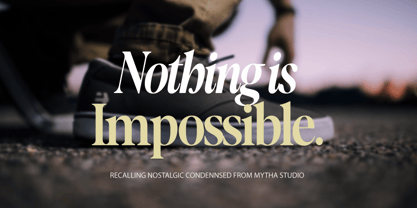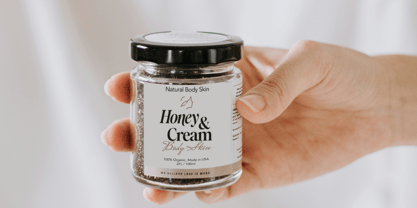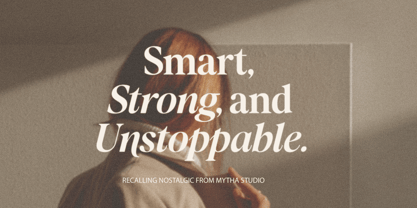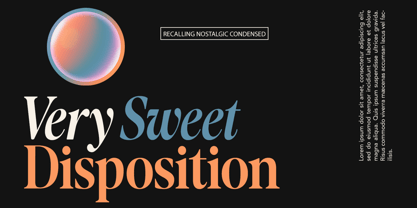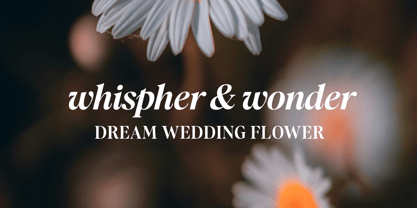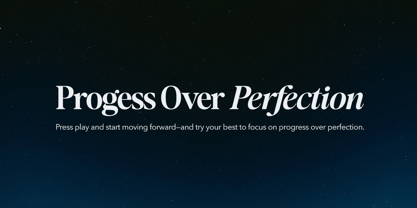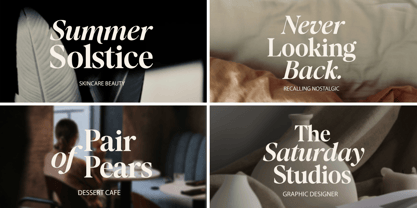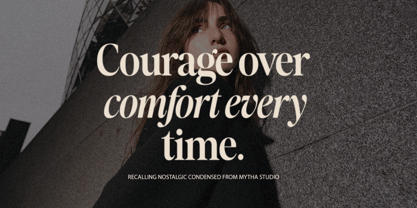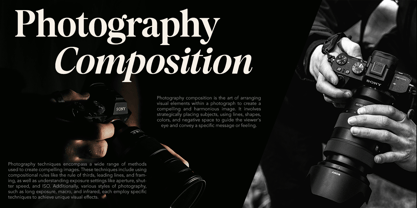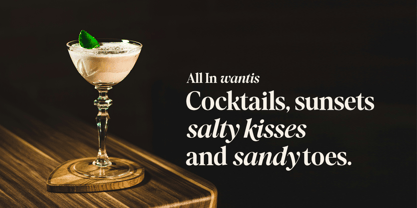
Recalling Nostalgic
by Mytha Studio
The Recalling Nostalgic Font Family was designed by Miftahul Jannah and published by Mytha Studio. Recalling Nostalgic contains 4 styles and family package options.
Recalling Nostalgic is a classic-style serif font that exudes an elegant, warm, and memorable feel. With smooth yet firm letterforms, as well as a touch of traditional curved lines, this font revives the beauty of past designs in a modern look.
This font combines strong serif elements with typical old style characteristics: medium contrast, slanted axis, and decorative details at the ends of letters. It is suitable for use in nostalgic themed projects, classic editorials, luxury branding, book design, invitations, and more.
Features:
- Classic and timeless serif style
- Suitable for headlines, editorials, and visual identities
- Has a refined and elegant character
- Gives a warm and emotional impression in design
Recalling Nostalgic is not just a font, but a feeling that is evoked through letterforms.